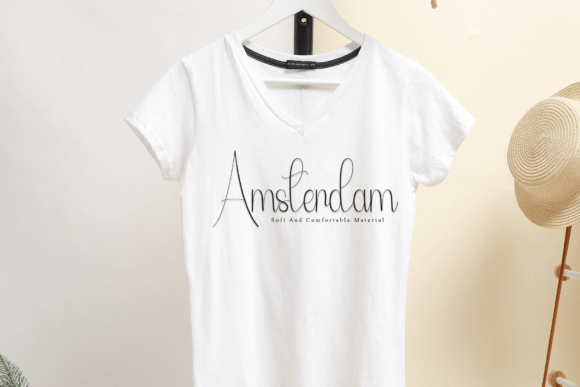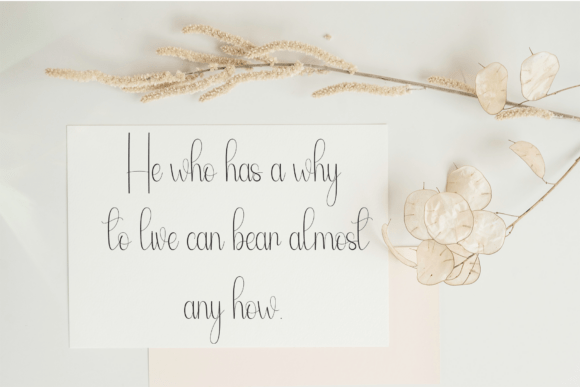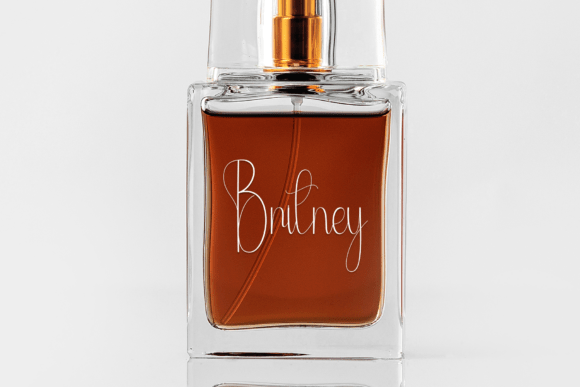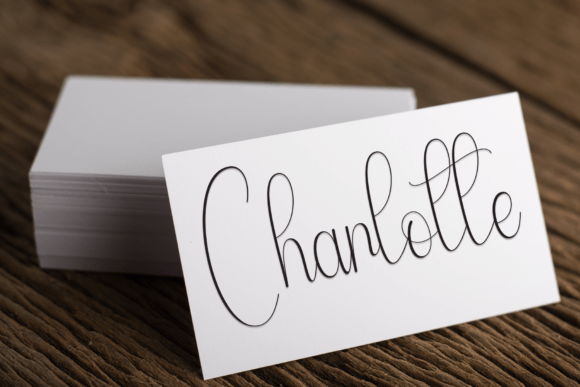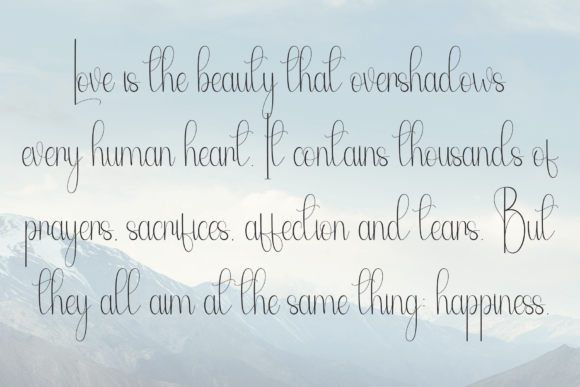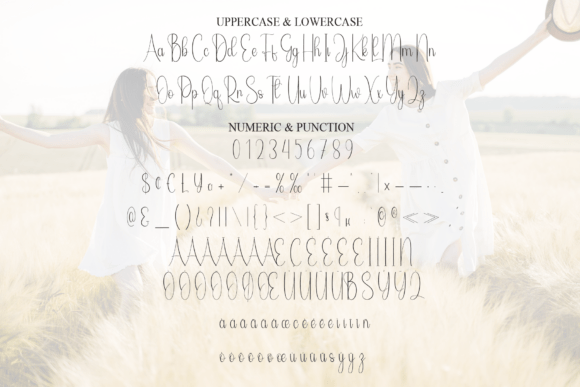
Introducing Harmony Font: Elevate Your Designs with Elegance and Playfulness
In the world of typography, a font can make or break a design. For designers and crafters looking to add a touch of sophistication and whimsy to their projects, Harmony Font is an exceptional choice. This stylish handwritten script font seamlessly blends modern elegance with a playful touch, making it perfect for a wide range of applications.
The Characteristics of Harmony Font
Harmony Font boasts fluid strokes and charming curves that bring a personal feel to any design. Its unique blend of modern sophistication and playfulness makes it an excellent addition to various projects, from logos and packaging to invitations and more. The font’s elegance is balanced by a lighthearted touch, ensuring that your designs stand out without appearing too formal or generic.
Ideal Applications for Harmony Font
Due to its versatility and aesthetic appeal, Harmony Font is suitable for a variety of design projects. Some of the ideal applications include:
- Logos: Create memorable and stylish logos that reflect your brand’s personality with Harmony Font.
- Packaging: Add a touch of elegance and sophistication to your product packaging, making it stand out on store shelves.
- Invitations: Design beautiful and eye-catching invitations for special occasions, such as weddings, parties, and corporate events.
- Stationery: Elevate your stationery designs, including business cards, letterheads, and notebooks, with the font’s unique charm.
Why Choose Harmony Font?
With Harmony Font, you can:
- Add Warmth: Infuse your designs with a sense of warmth and approachability, making them more relatable to your audience.
- Exude Sophistication: Convey a sense of luxury and sophistication, perfect for high-end brands and premium products.
- Boost Creativity: Inspire creativity and imagination with a font that is both playful and elegant.
Tips for Using Harmony Font Effectively
To get the most out of Harmony Font, consider the following tips:
- Pair with Complementary Fonts: Combine Harmony Font with other fonts that complement its style, such as sans-serif fonts for a modern contrast.
- Experiment with Colors: Try different color schemes to find the perfect match for your design, from bold and bright to soft and pastel.
- Play with Sizes: Use varying font sizes to create visual hierarchy and emphasize key elements in your design.
Harmony Font is a versatile and stylish handwritten script font that can elevate your designs to new heights. Its unique blend of modern elegance and playfulness makes it perfect for designers and crafters looking to add a personal touch to their projects. With its fluid strokes, charming curves, and wide range of applications, Harmony Font is an excellent choice for anyone looking to create stunning designs that leave a lasting impression.
Get Ready to Create with Harmony Font